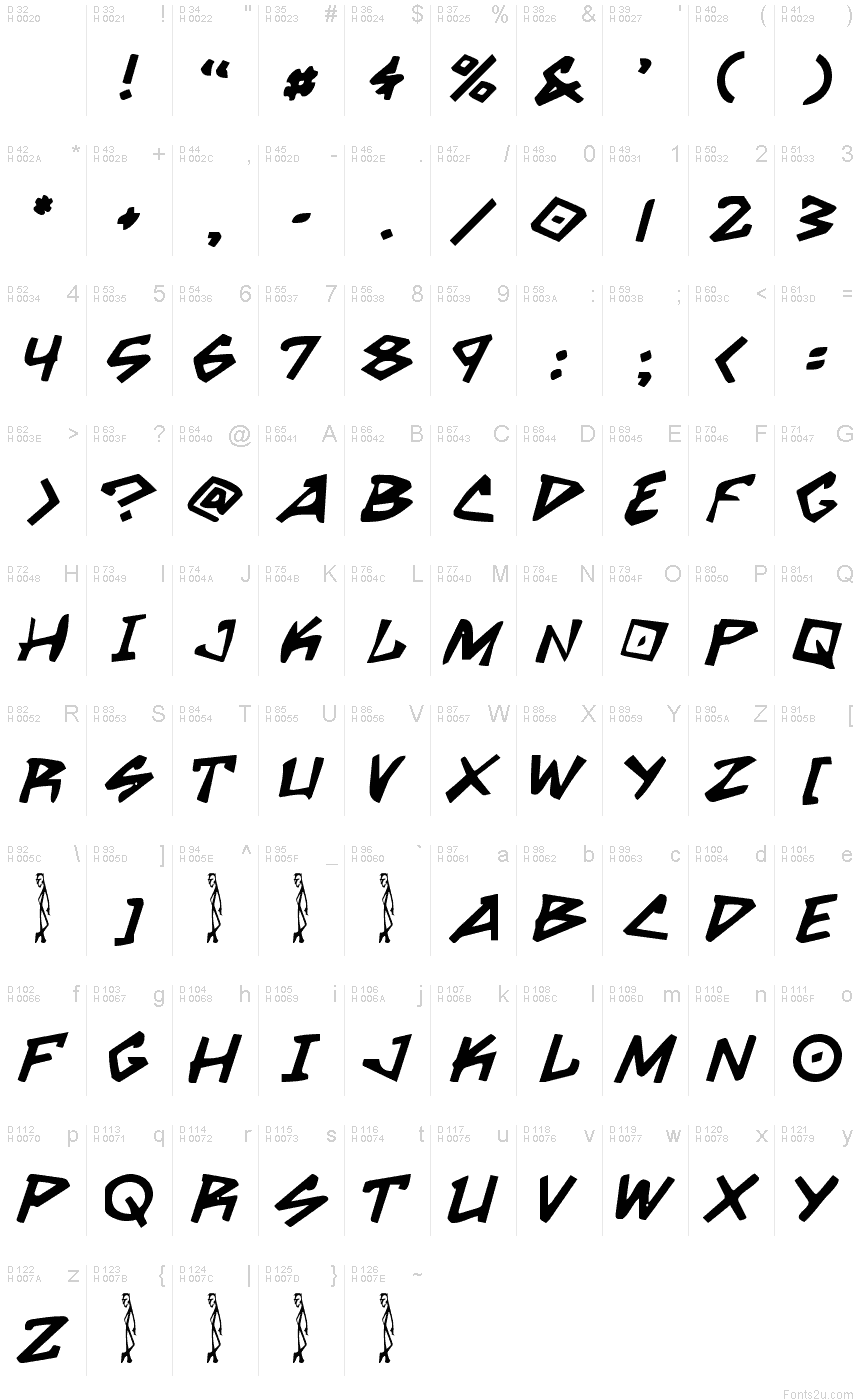
Grrrrrr Bold
Grrrrrr Bold font by Mike Hind is a free comic display typeface that practically shouts off the page. Thick, inky strokes and a forward-leaning stance give every word the snap of a hand-drawn sound effect, like it’s been slapped onto a comic panel mid-action. The letters feel chunky and slightly unruly, with a playful growl that’s more mischievous than menacing.
Using Grrrrrr Bold, you can crank up the drama in comic sound effects, kids’ book titles, Halloween posters, monster-themed party invites, arcade-style logos, and playful social graphics. This free font thrives when it’s big and loud; keep it at large sizes so the bold shapes stay crisp. For a simple pairing, match Grrrrrr Bold with a clean, neutral sans serif for body text to let its wild personality take the spotlight.